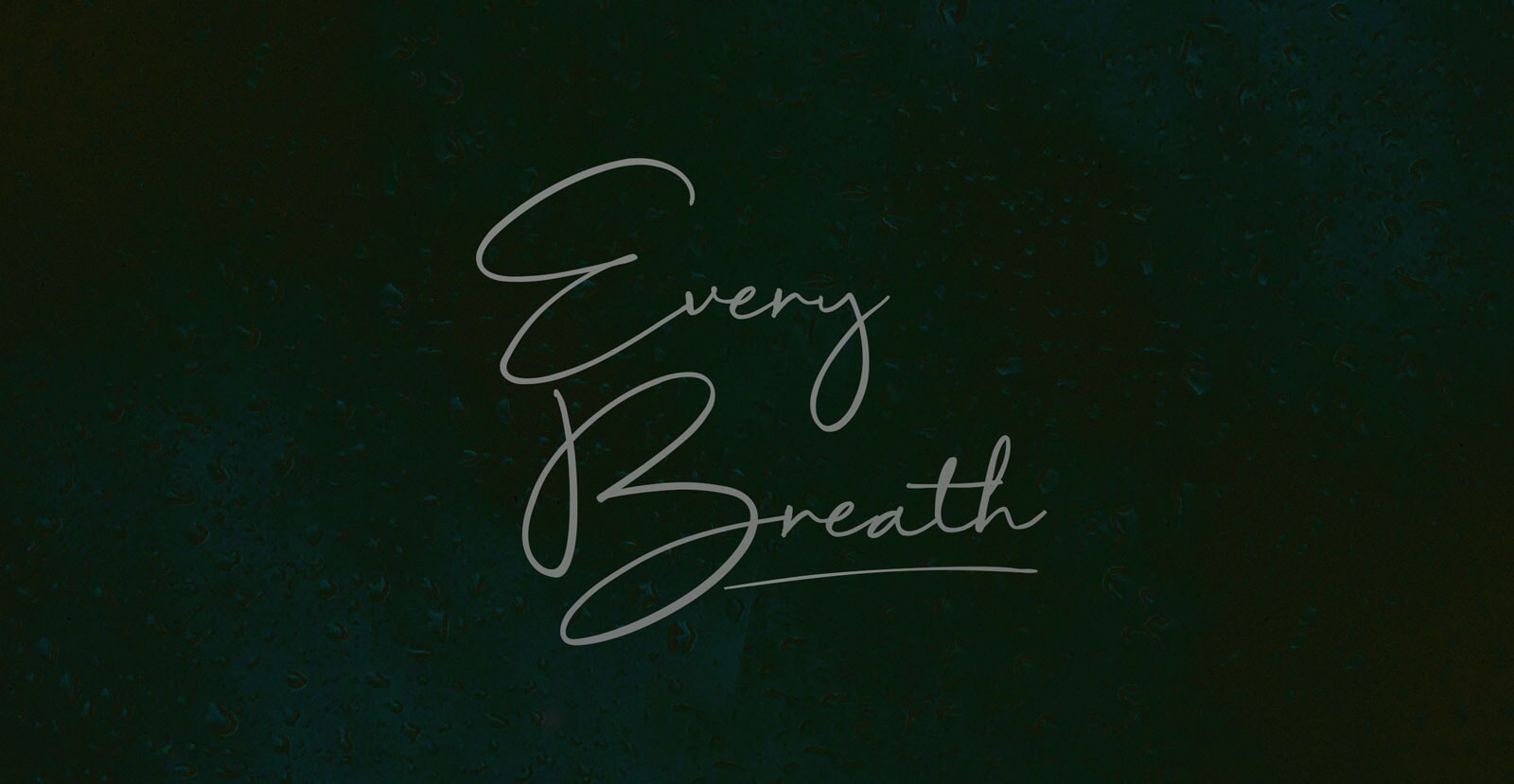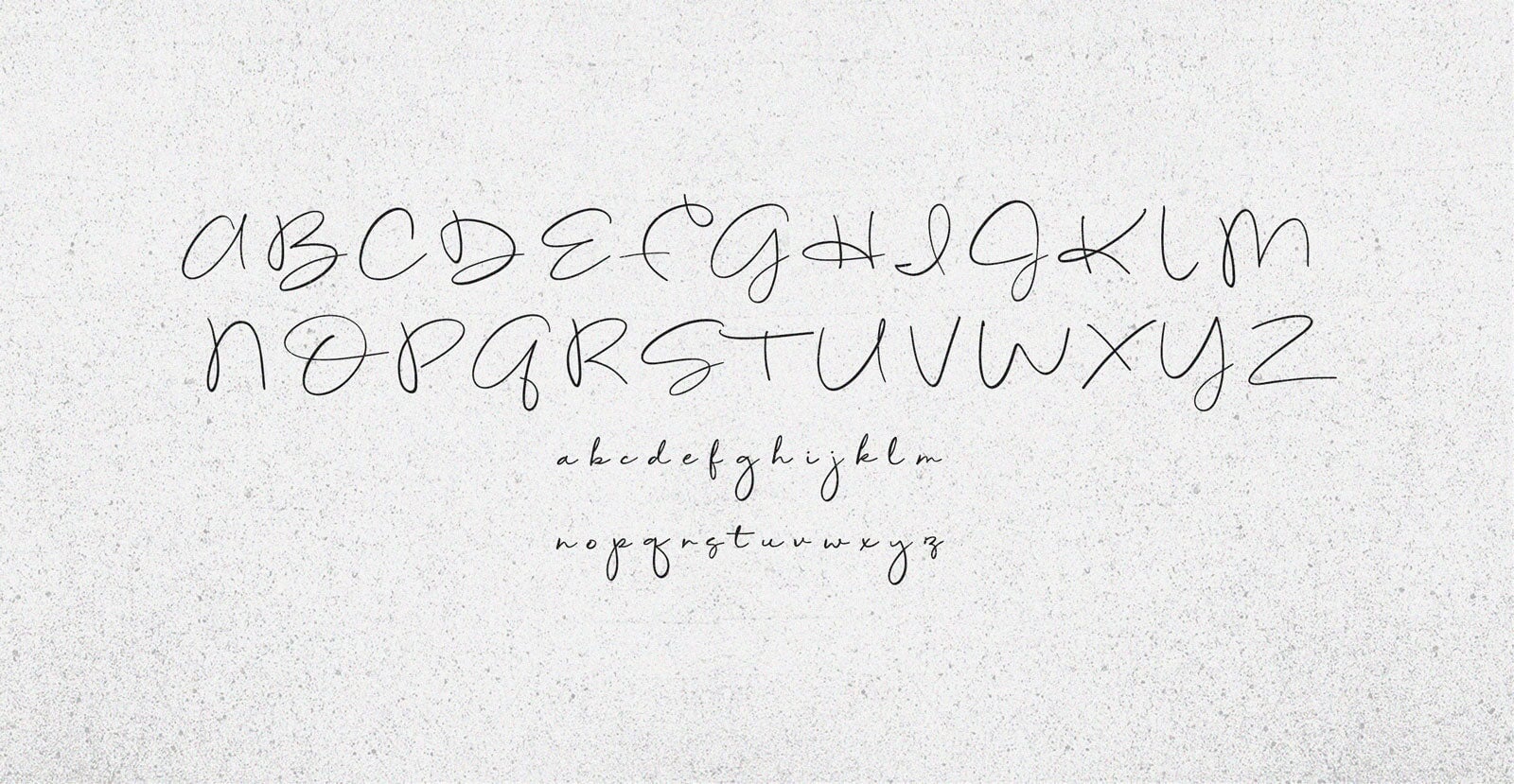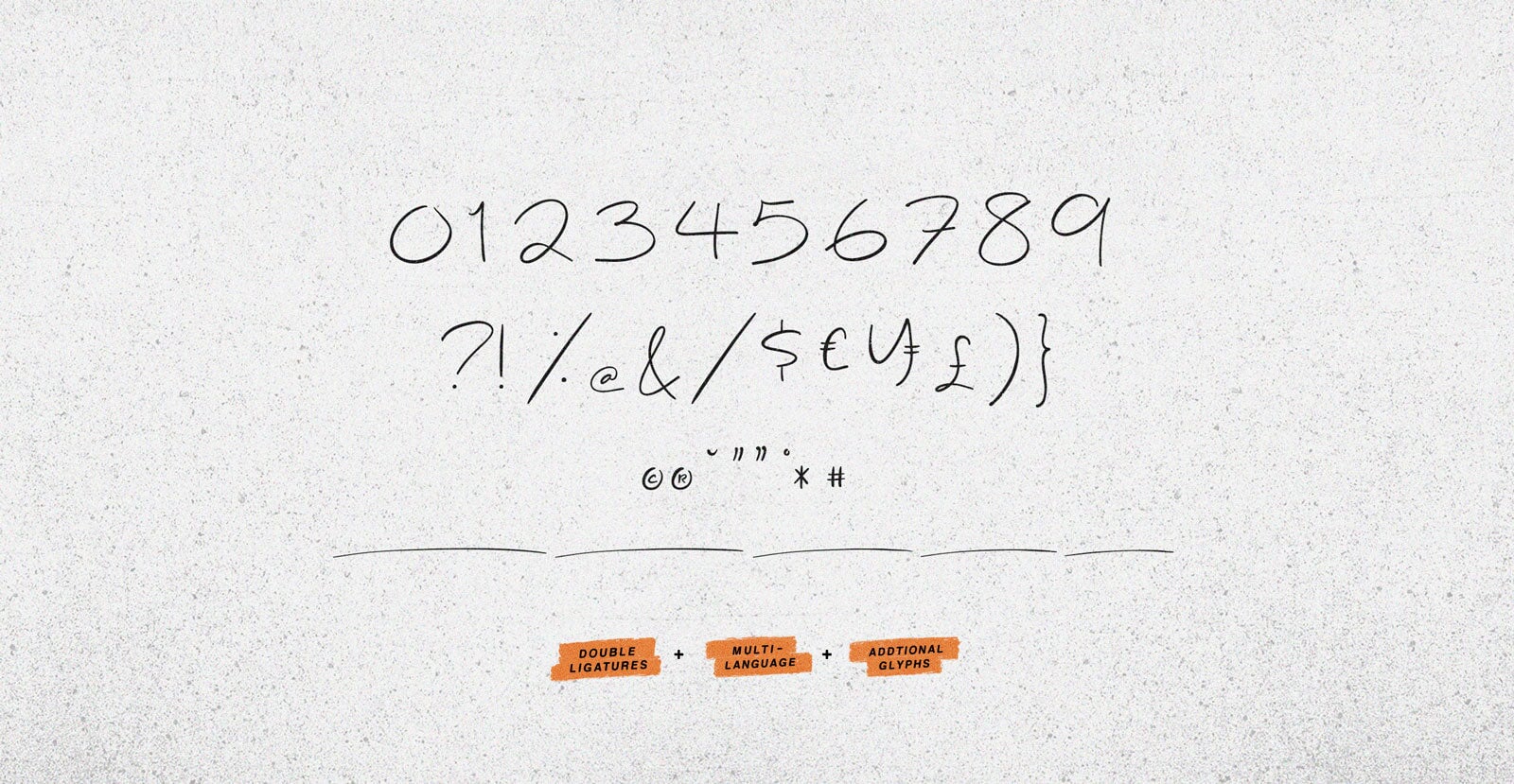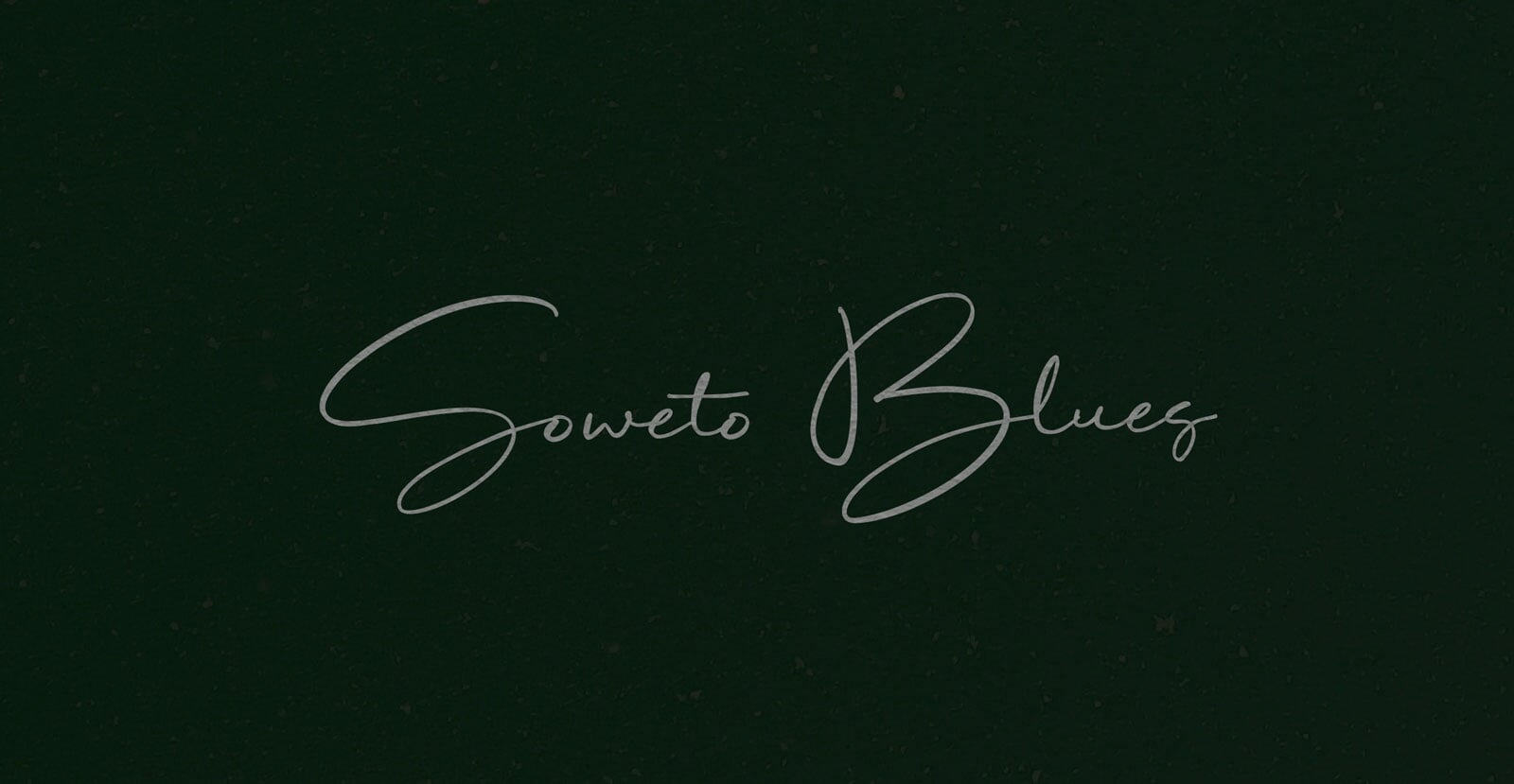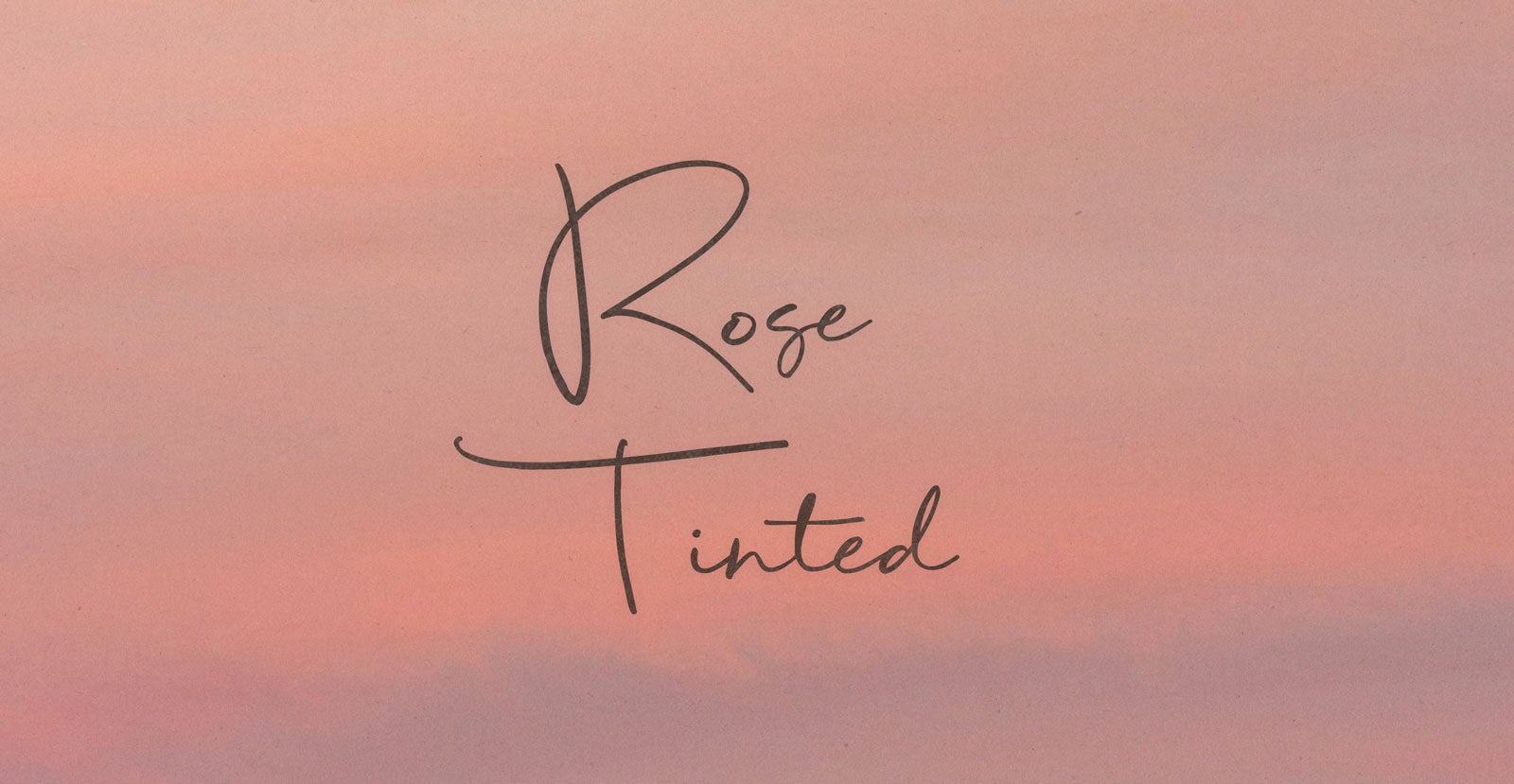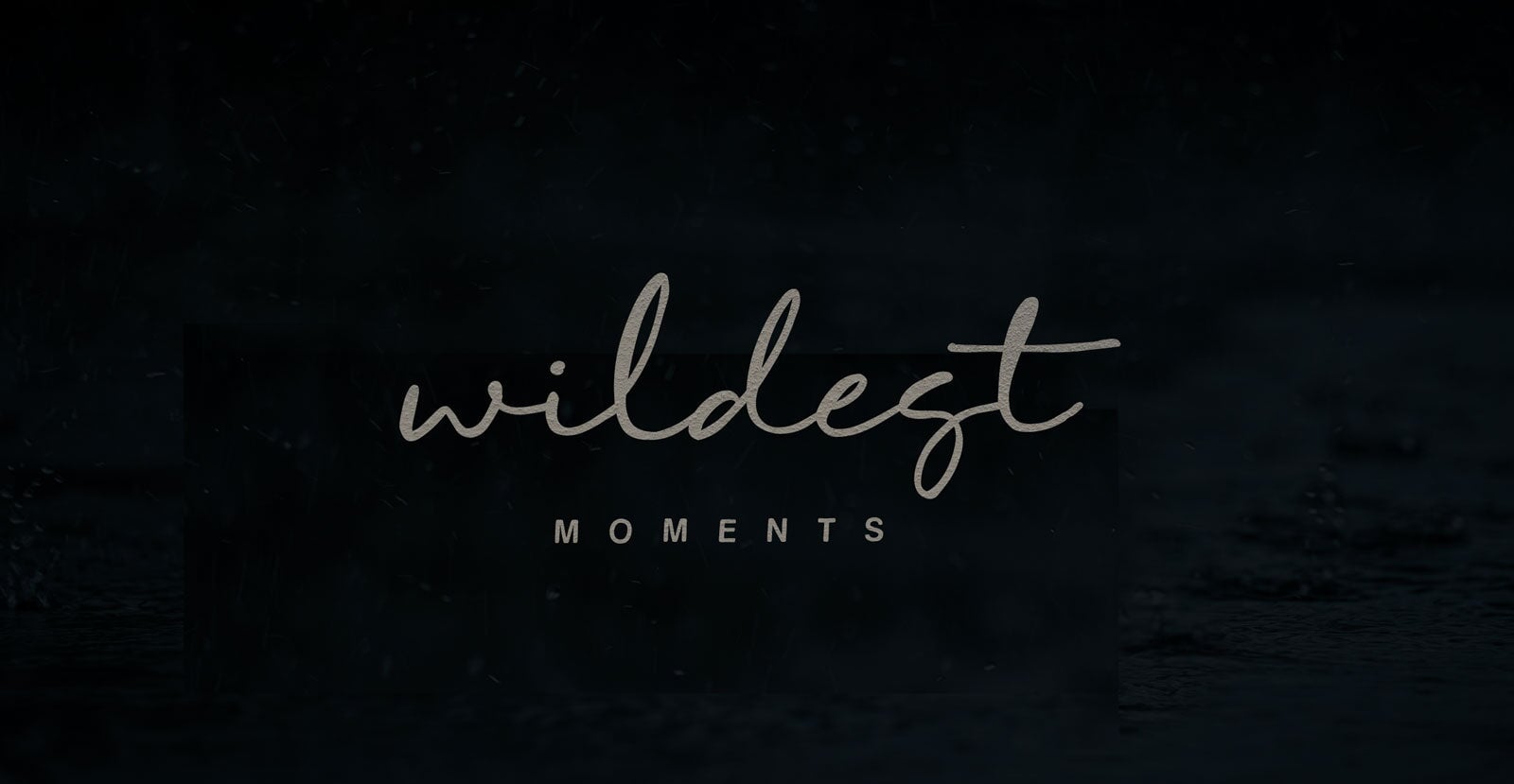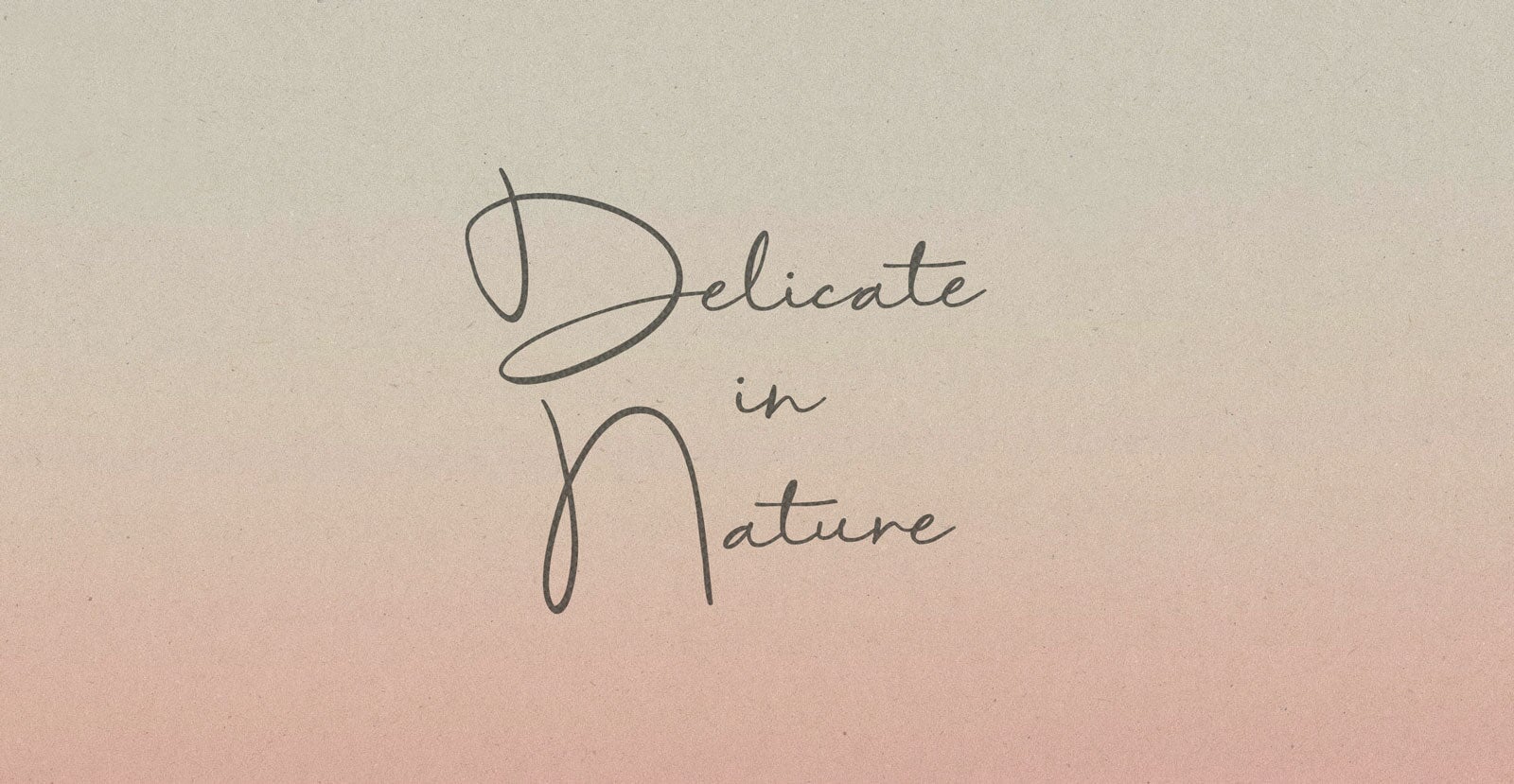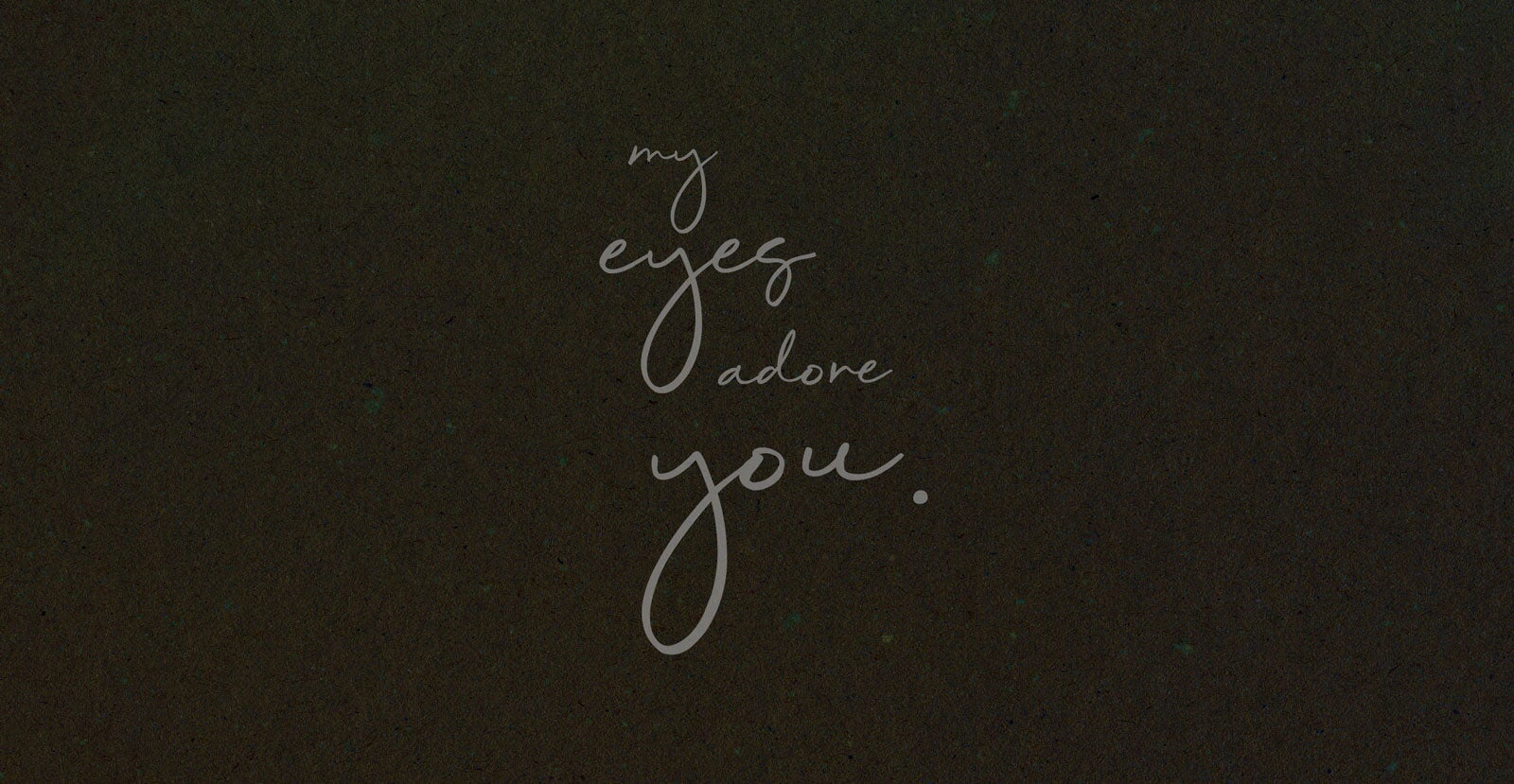
Every Breath
Handwritten Pen Script Font
Every Breath moves like a whisper. Delicate, essential, and always present. It’s the rhythm beneath the noise, the pause that gives shape to motion. Unseen but deeply felt, it carries everything without needing to hold on.